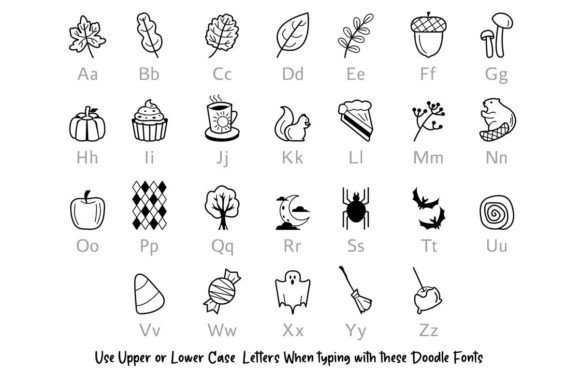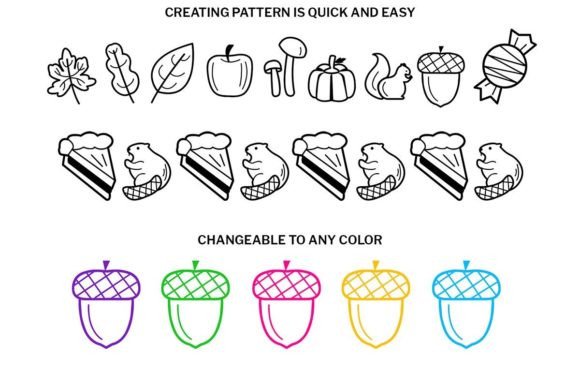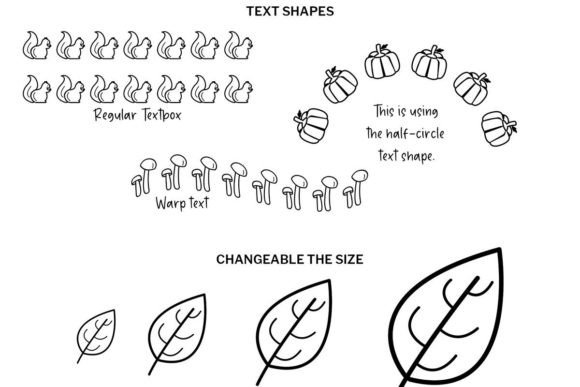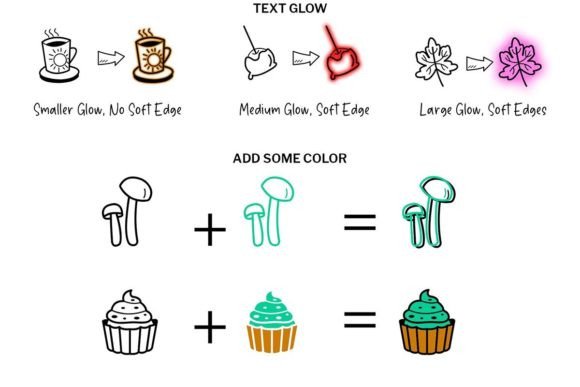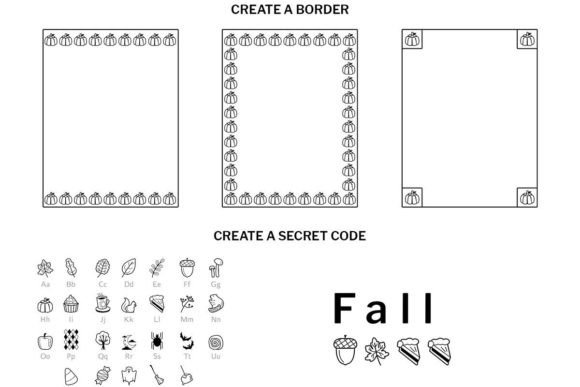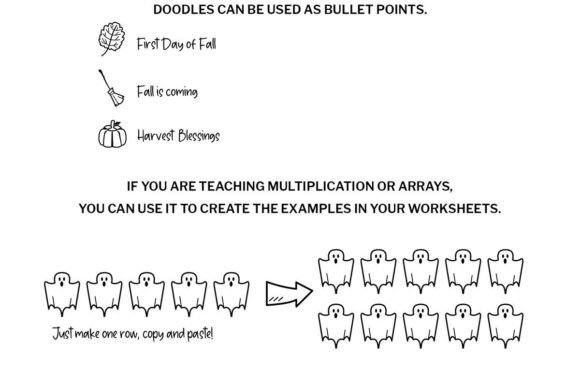
Introducing Fall Doodle Font: The Ultimate Addition to Your Crafting Arsenal
Are you a designer, crafter, or DIY enthusiast looking for a fun and versatile font to elevate your projects? Look no further than the Fall Doodle Font! This delightful dingbat font is perfect for adding a touch of whimsy and personality to a wide range of craft projects, designs, planners, diaries, activity books, and more.
What is Fall Doodle Font?
Fall Doodle Font is a unique and playful dingbat font that features an assortment of cute and colorful doodles. From autumnal leaves and acorns to pumpkins and other seasonal icons, this font is packed with a vast array of graphics that are sure to bring your projects to life. Whether you’re creating a fall-themed planner, a DIY craft tutorial, or a social media graphic, Fall Doodle Font is the perfect addition to your design toolkit.
The Versatility of Fall Doodle Font
One of the best things about Fall Doodle Font is its incredible versatility. This font can be used in a wide range of projects, from:
- Craft projects: Add a personal touch to your handmade crafts, such as scrapbook pages, cards, and gift tags.
- Designs: Use Fall Doodle Font to create stunning social media graphics, blog posts, and website headers.
- Planners and diaries: Add some personality to your planners and diaries with fun and colorful doodles.
- Activity books: Create engaging and interactive activity books for kids, featuring Fall Doodle Font’s adorable graphics.
Why Choose Fall Doodle Font?
So why choose Fall Doodle Font over other fonts and graphics? Here are just a few reasons:
- Unique and eye-catching: Fall Doodle Font features a one-of-a-kind collection of doodles that are sure to grab attention.
- Easy to use: This font is incredibly easy to use, even for those with limited design experience.
- Customizable: With Fall Doodle Font, you can customize your projects to fit your personal style and brand.
- Seasonal and timely: The autumnal theme of Fall Doodle Font makes it perfect for seasonal projects and designs.
Tips and Tricks for Using Fall Doodle Font
To get the most out of Fall Doodle Font, here are a few tips and tricks to keep in mind:
- Experiment with different colors: Fall Doodle Font looks great in a variety of colors, so don’t be afraid to get creative and try out different palettes.
- Mix and match: Combine Fall Doodle Font with other fonts and graphics to create unique and interesting designs.
- Use it sparingly: While Fall Doodle Font is fun and playful, it’s best to use it sparingly to avoid overwhelming your design.
| Font Name | Fall Doodle Font |
| Author | digitalplannerland |